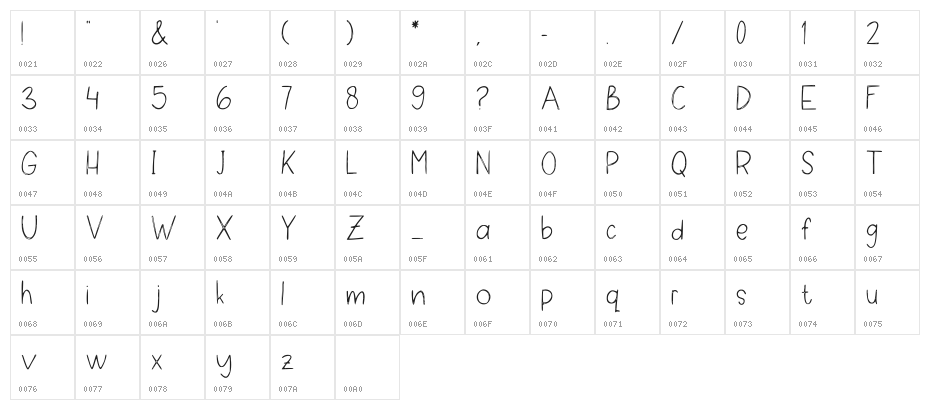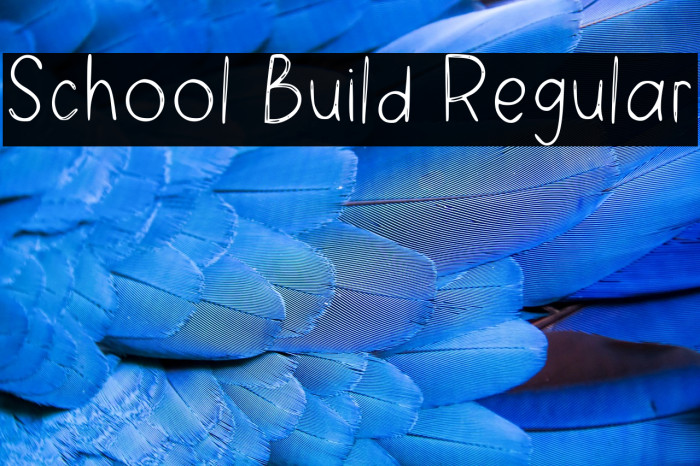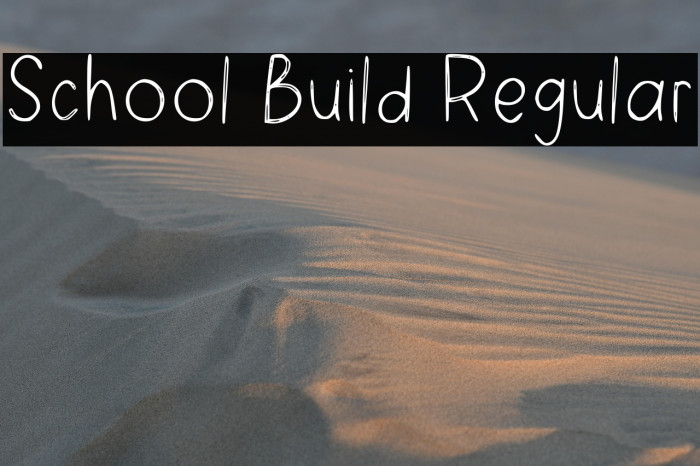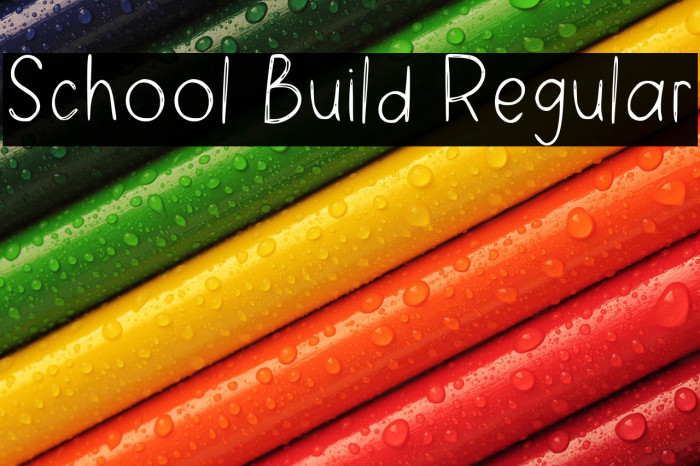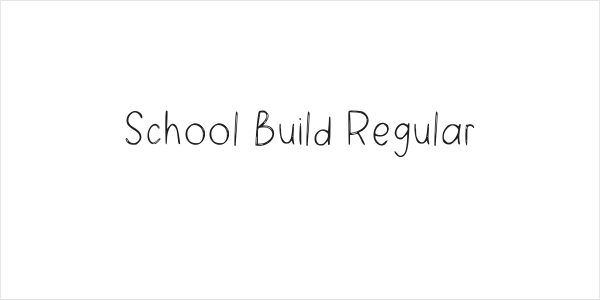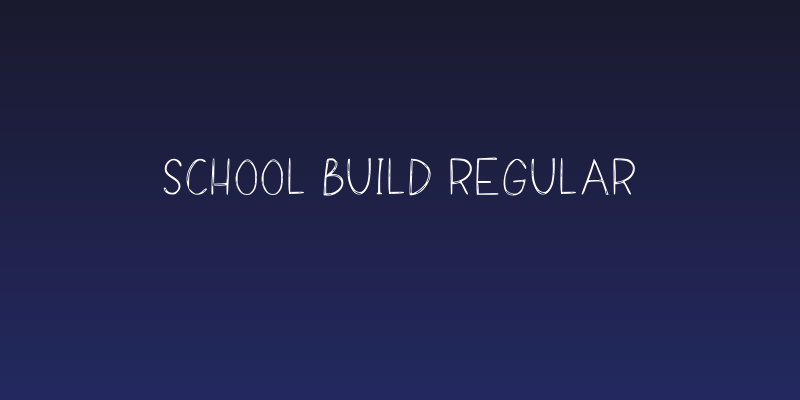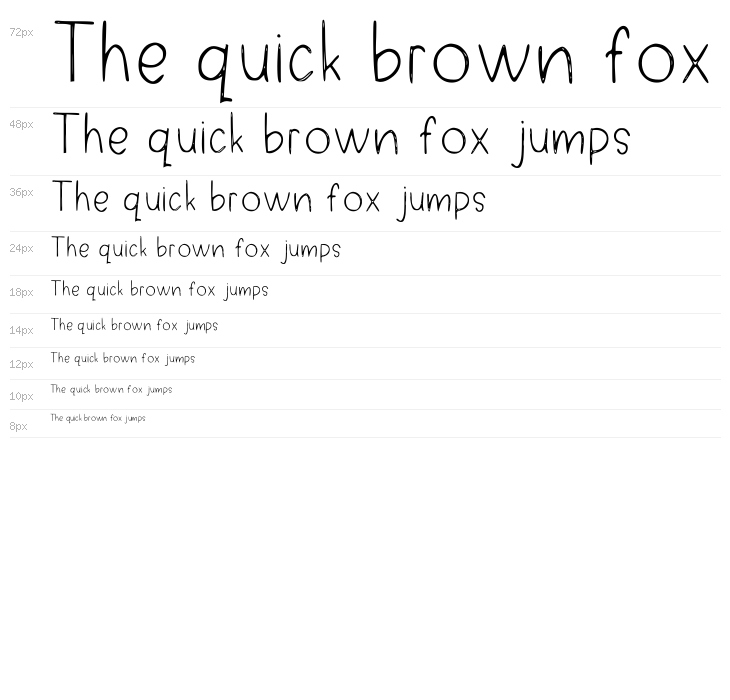
School Build Regular Font
School Build Regular Description
A playful, handwritten style font with irregular strokes and a casual appearance.
| Overall Style | Casual, Playful |
| Use Case | Headlines, Informal text, Educational materials |
| Proposed Projects | Children's books, educational materials, casual invitations. |